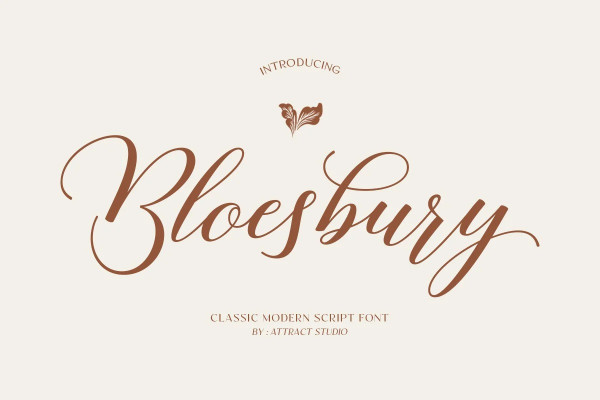
Bloesbury Font
Bloesbury Font is a modern style script font inspired by handwriting. This font is suitable for your design needs and can be combined with other fonts. Which is perfect for your design needs such as branding, logo design, wedding invitations, decorations, and more.